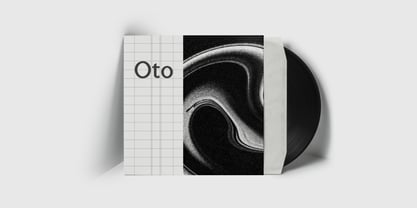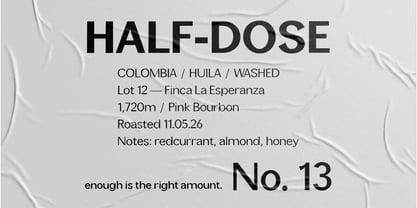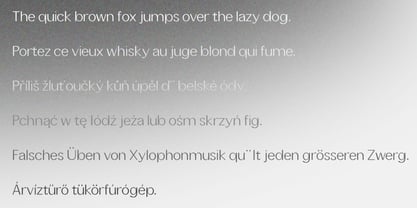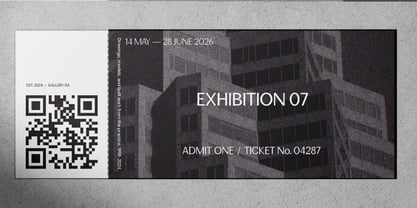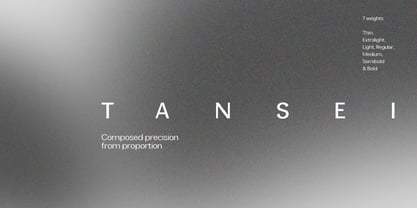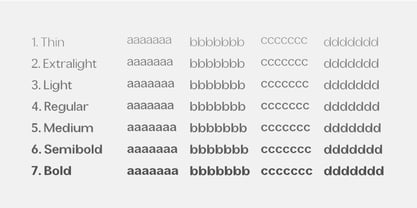
Tansei
Tansei takes its name from the Japanese concept of a composed, dignified, and well-proportioned form, a grace that comes from balance rather than rigidity. The design brings this idea to life by blending a clean geometric grid with subtle, organic touches where the lines meet, keeping the text smooth and highly readable.
Built for editorial, branding, and product design, Tansei offers a voice that is neutral yet deeply intentional. It finds the middle ground between mechanical perfection and human touch, staying out of the way without fading into the background.
The focus is on creating typefaces that express quiet sophistication through clarity and restraint. Each design begins with an appreciation for proportion, rhythm, and subtle detail, elements that allow typography to feel both modern and timeless. The primary goal is to craft letterforms that carry emotion through structure, communicating elegance without excess. These work is inspired by the meeting point between simplicity and refinement, where every design decision has meaning. Each curve and connection is considered to bring balance and poise, resulting in type that feels graceful, contemporary, and enduring. Our believe that true beauty in typography lies in precision, calmness, and the space between forms.